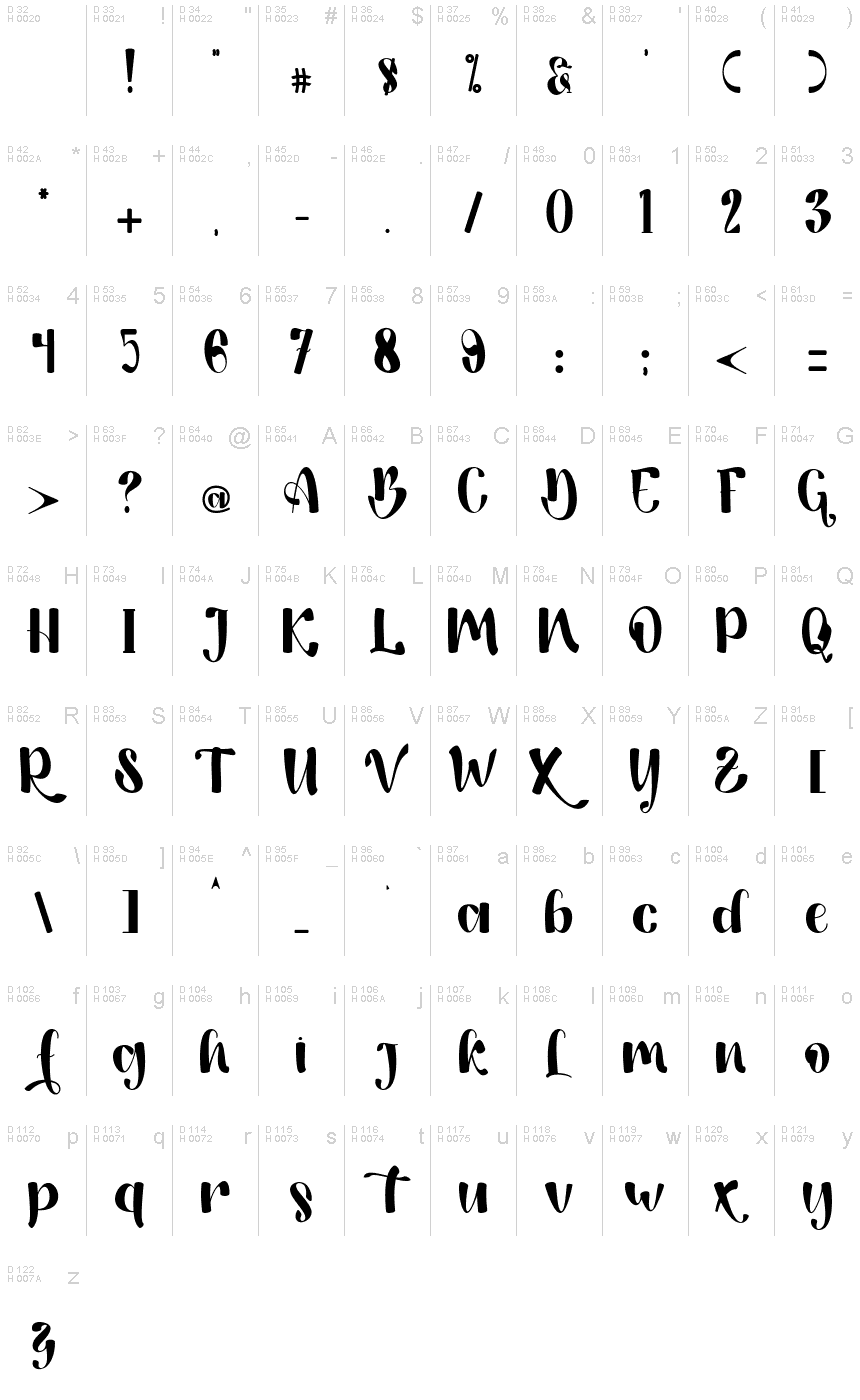
Loventha, a romantic brush font by Harjuno Kristanto, exudes elegance and charm. With its bold weight, it adds a touch of sophistication to any project.
Perfect for wedding invitations and love-themed designs, Loventha captures the essence of romance with its delicate brush strokes and graceful curves. Its versatility also makes it suitable for fashion magazines, branding materials, and inspirational quotes.
Elevate your creative endeavors with Loventha's enchanting appeal and let your designs speak volumes of love and beauty.